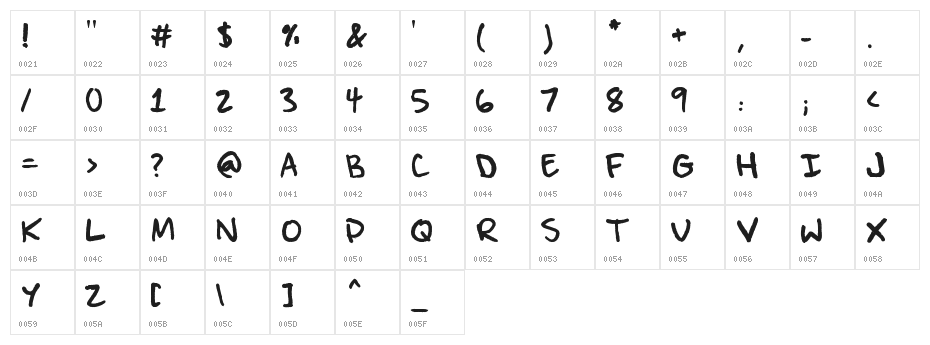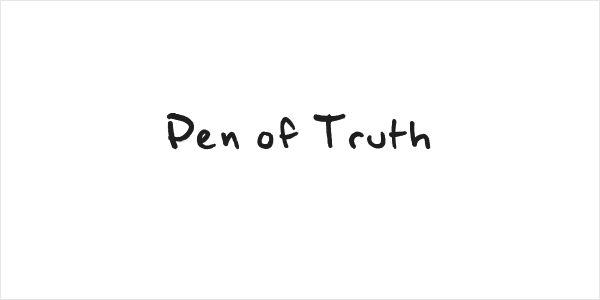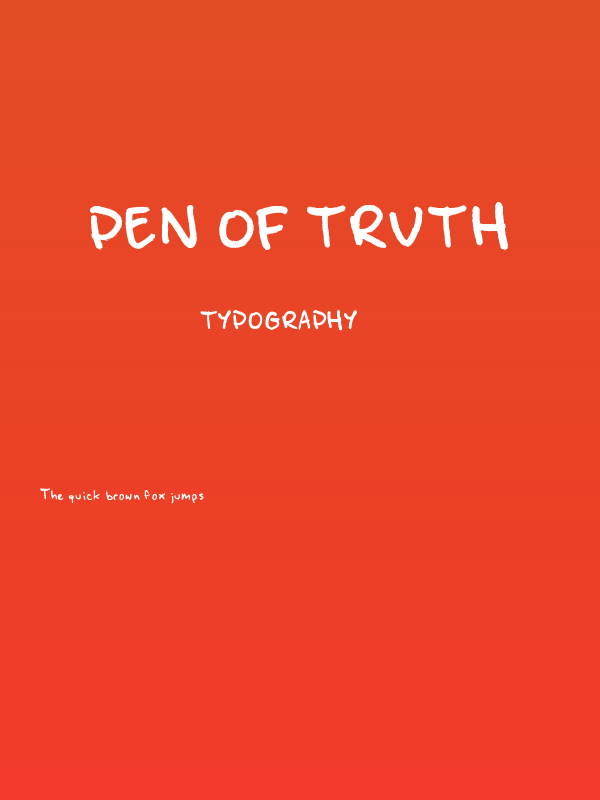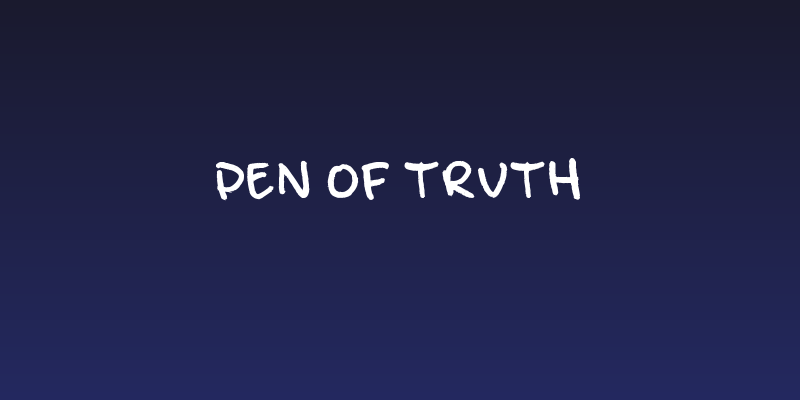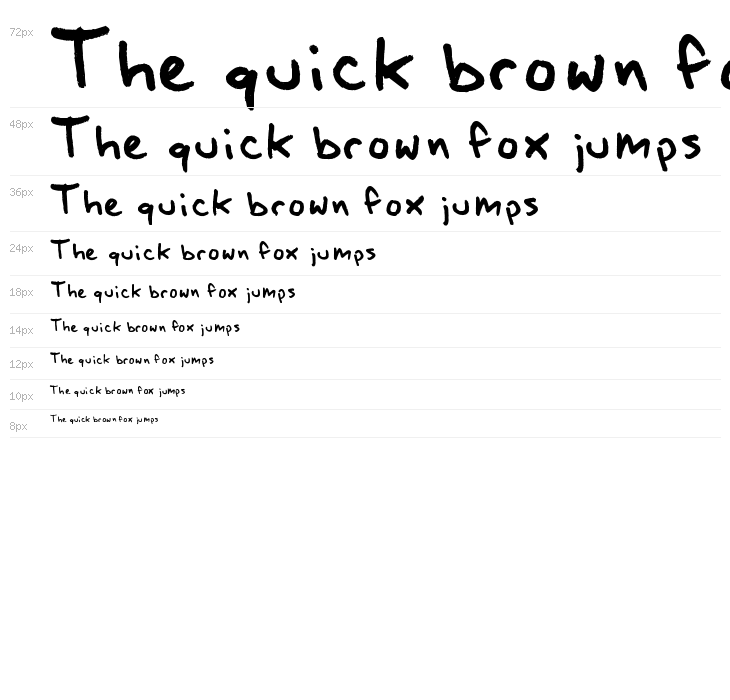
Pen of Truth Font
Pen of Truth Description
This font exudes a casual, handwritten style, characterized by its playful and informal appearance. The letters are slightly irregular, mimicking the natural flow of handwriting with a felt-tip pen. The strokes are bold and consistent, providing a sense of uniformity despite the informal style. The uppercase and lowercase letters maintain a cohesive look, with rounded edges and a slight tilt that adds to the font's charm. Numbers and special characters follow the same aesthetic, ensuring a harmonious look across all elements. This font is perfect for projects that require a personal touch, such as greeting cards, invitations, or creative branding materials.